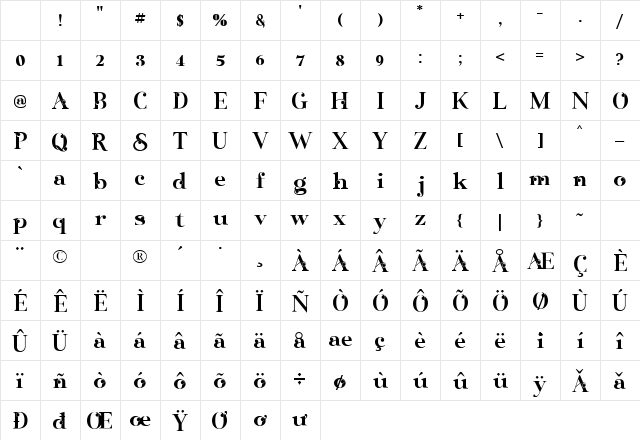
Sangi Serif carries the refined structure of traditional serif typography, with bracketed terminals and considered proportions that communicate credibility and craft.
Pro Tip: Use Sangi Serif for editorial body copy and considered headline work. Pair with a neutral sans for UI elements or captions to create a classic hierarchy.